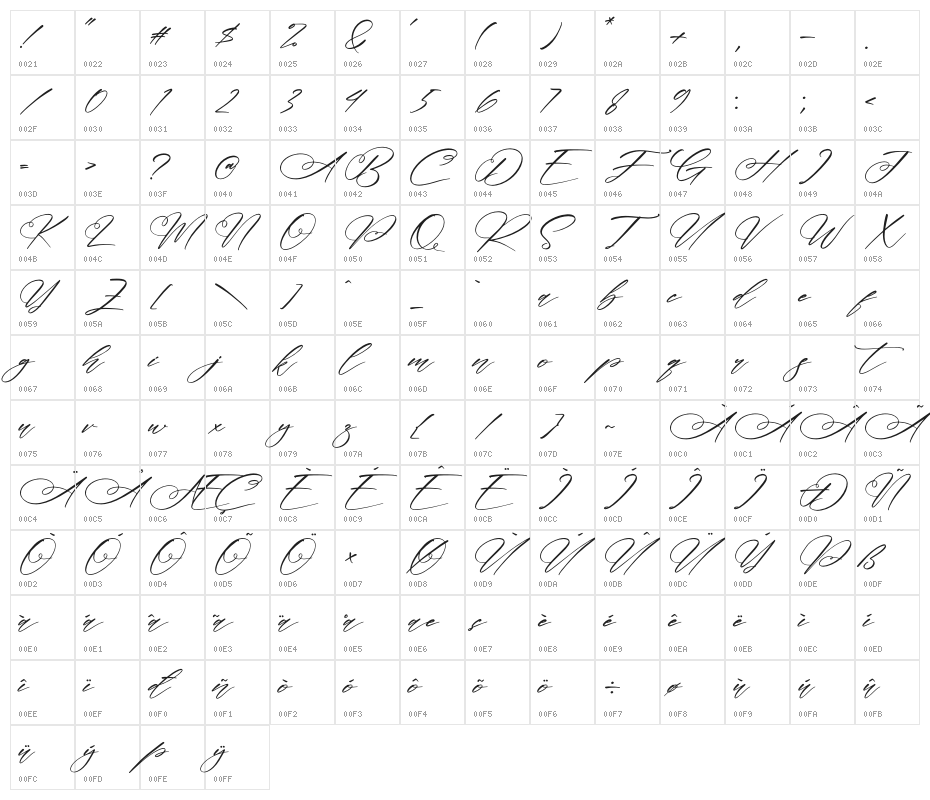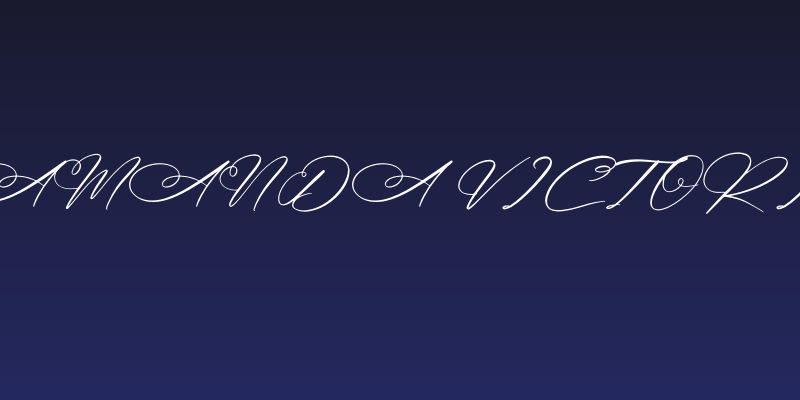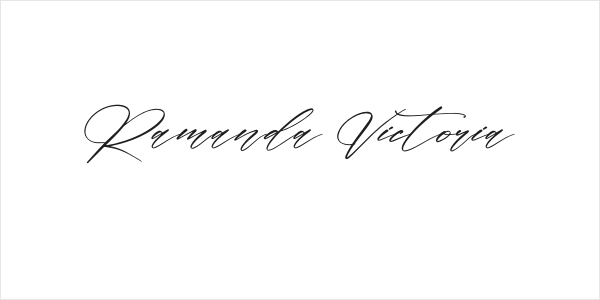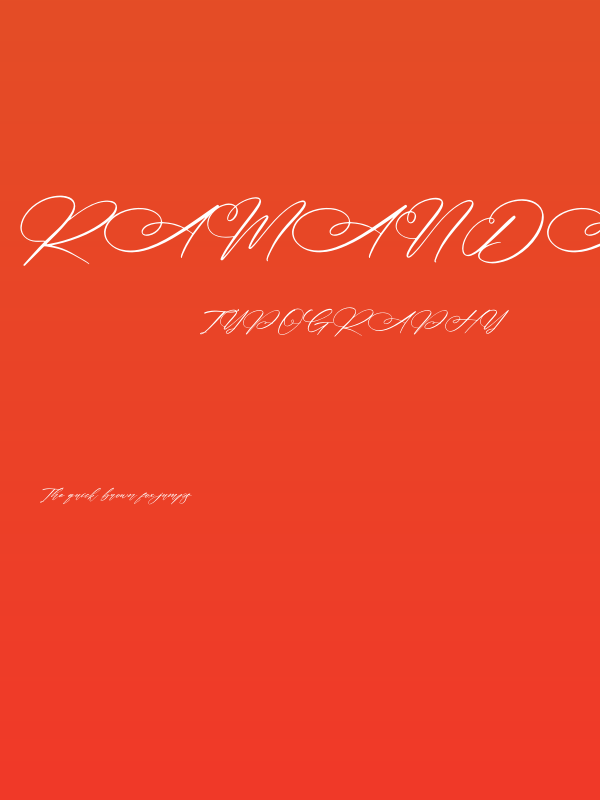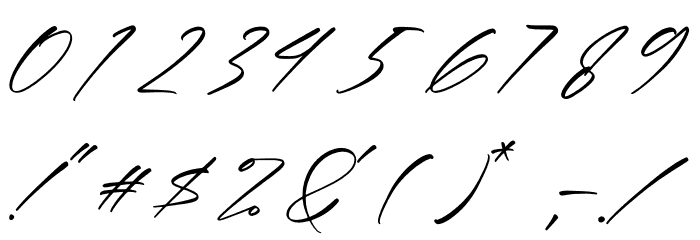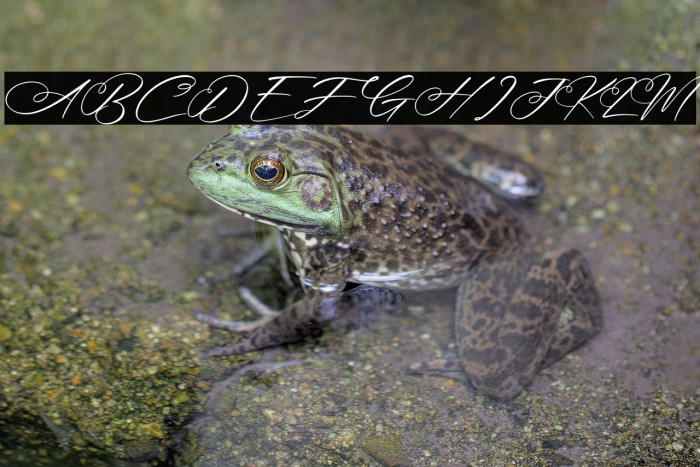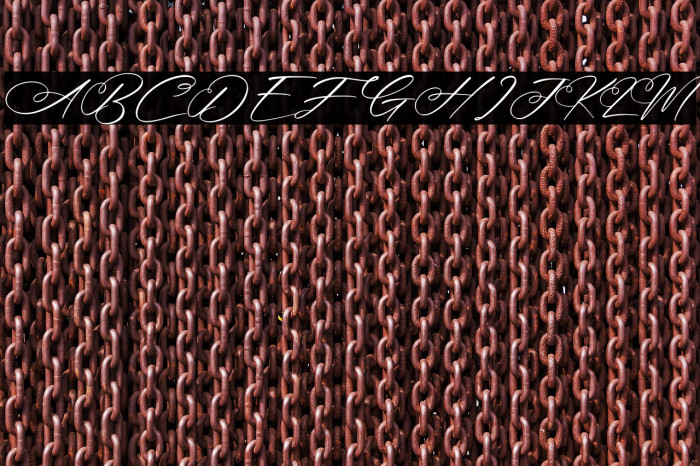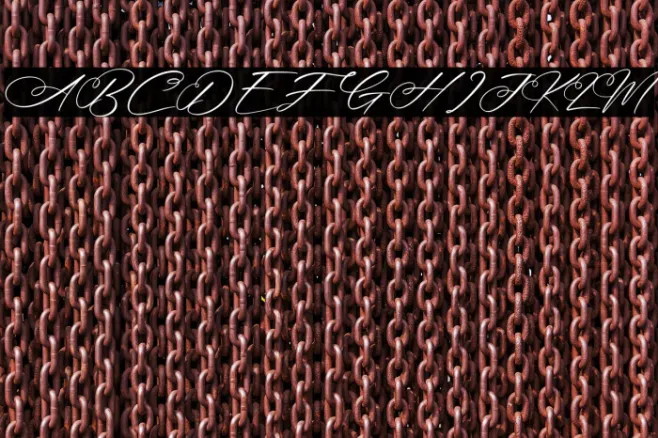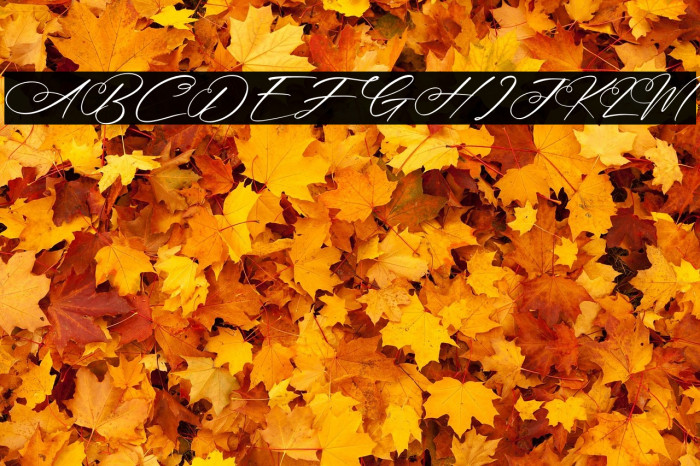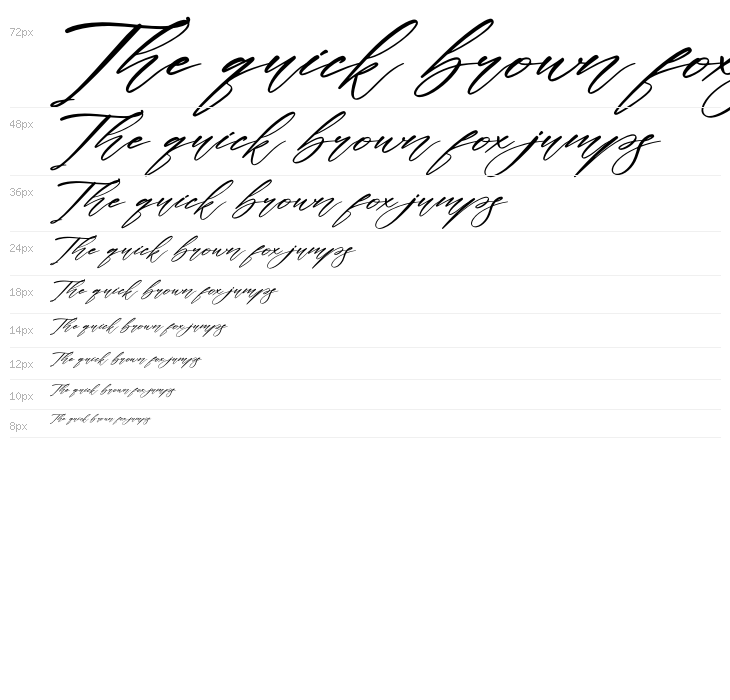
Ramanda Victoria Font
Ramanda Victoria Description
This elegant script font features fluid, interconnected strokes that mimic the natural flow of handwriting. The uppercase letters are ornate with sweeping flourishes, while the lowercase letters maintain a consistent, graceful rhythm. The numbers and special characters are designed with the same attention to detail, ensuring a cohesive look across all elements. The font's overall appearance is sophisticated and artistic, making it ideal for projects that require a touch of elegance and personal flair.